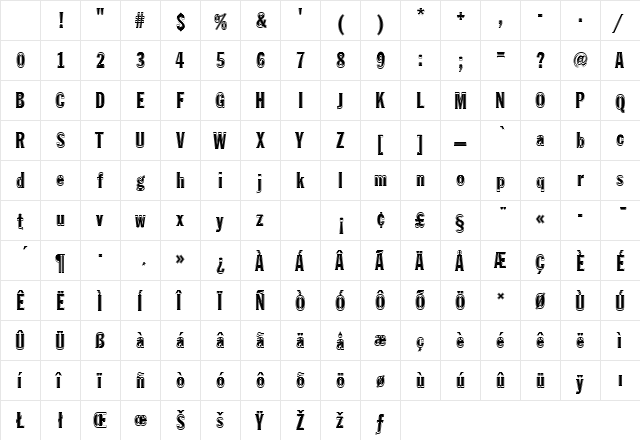
FranklinGotTExtConIn1 Regular
Design Context for FranklinGotTExtConIn1
FranklinGotTExtConIn1 is a composed and adaptable typeface that performs quietly and consistently across a wide range of design contexts.